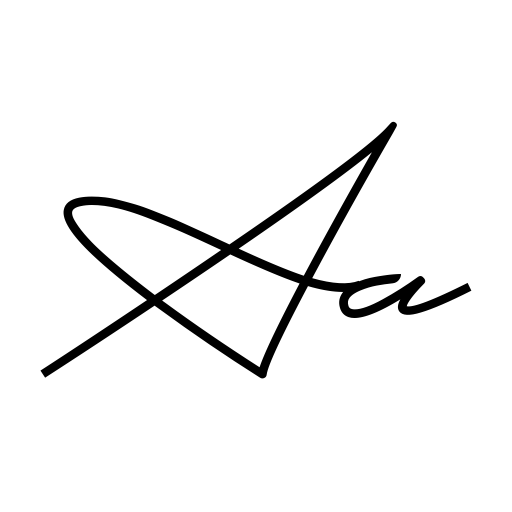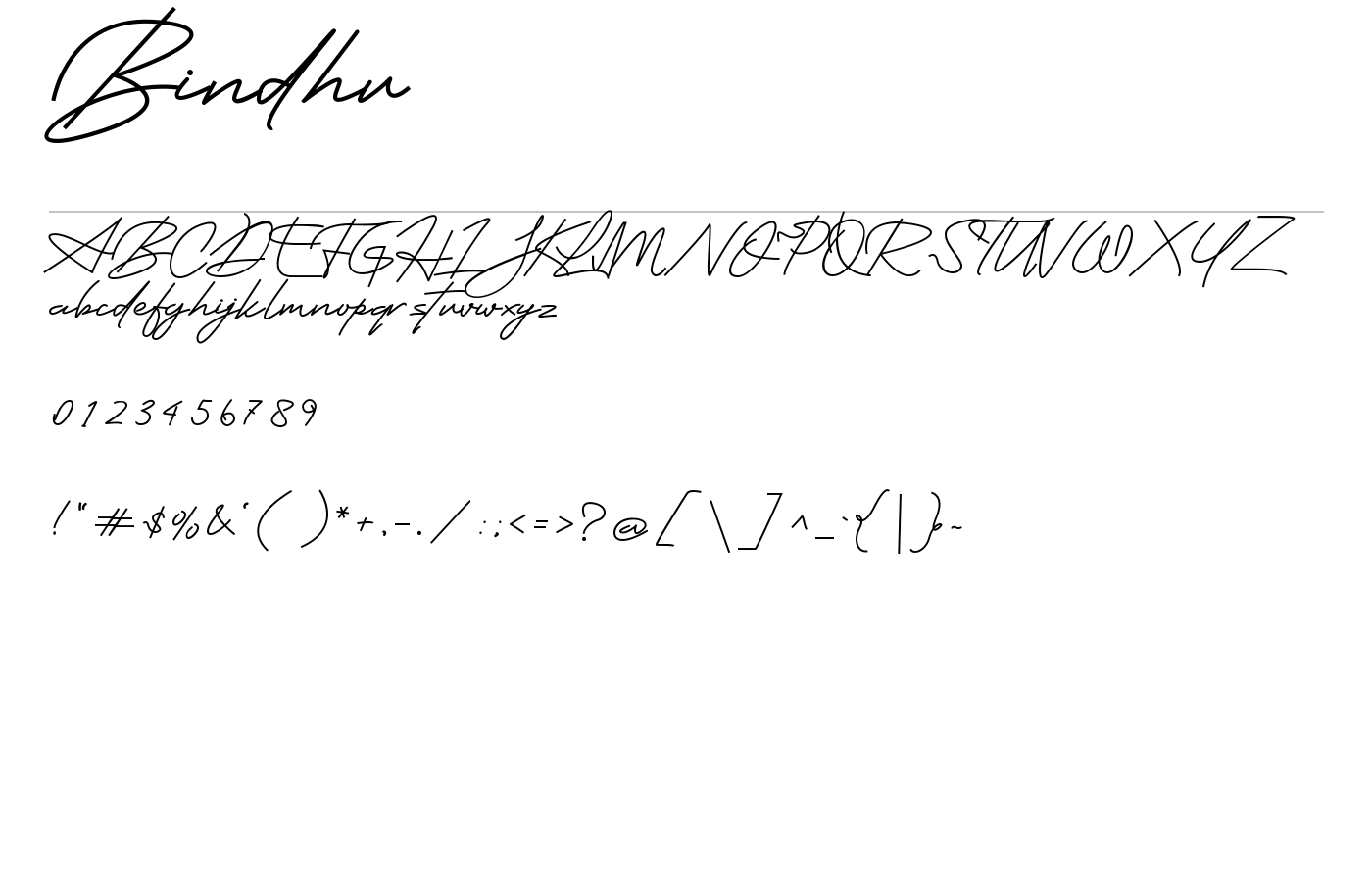
Bindhu Font is a delicate, handwritten script with a light, airy feel characterized by its elegant, flowing lines and fine strokes. Its tall x-height and slender, slightly slanted letterforms create a modern yet personal touch, making it perfect for stylish branding, invitations, and creative projects that seek a sophisticated, intimate vibe. This font works beautifully in logos, headlines, and decorative text where a chic and graceful handwritten appearance is desired.
Bindhu Font
About Bindhu Font